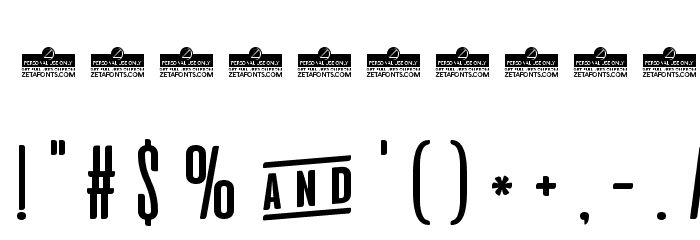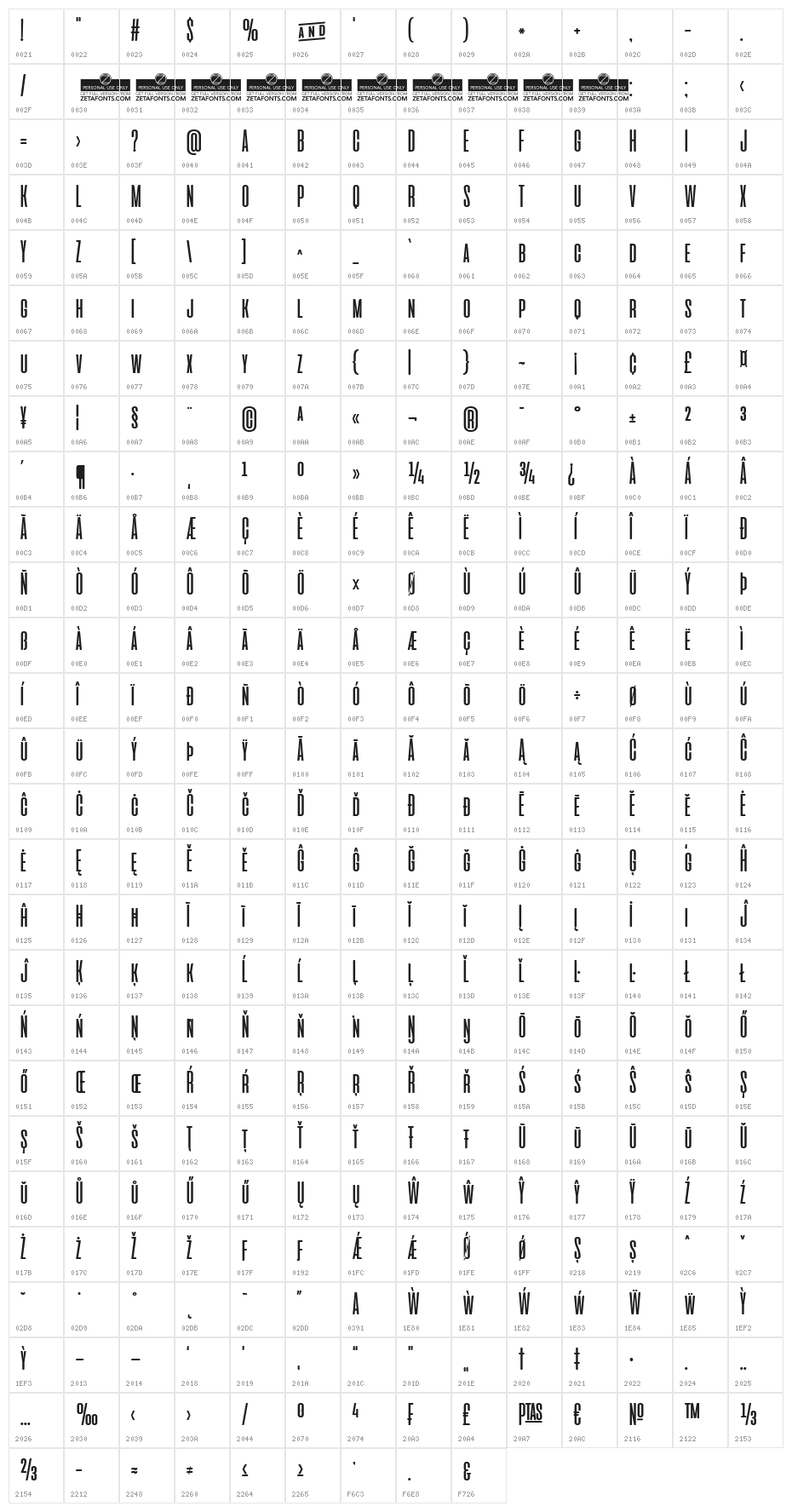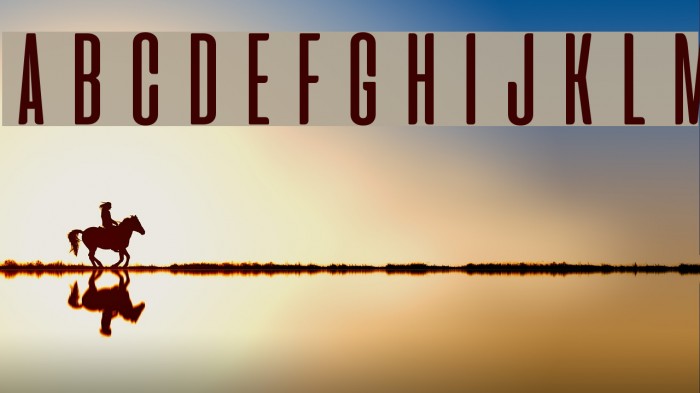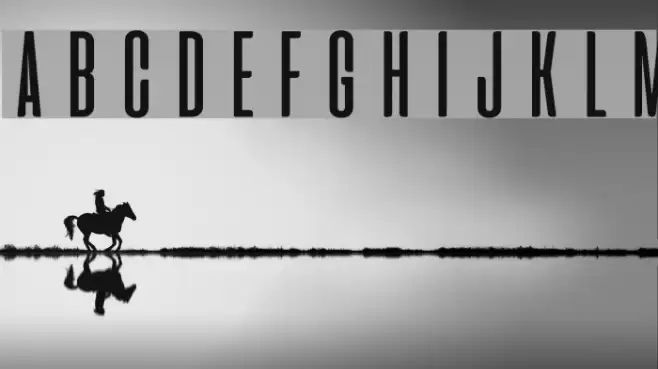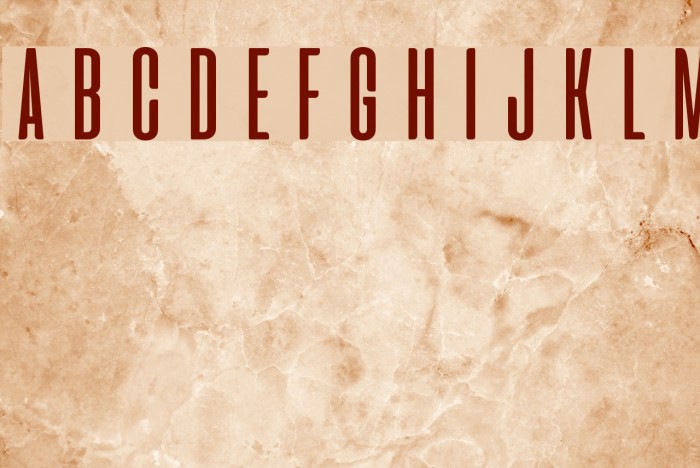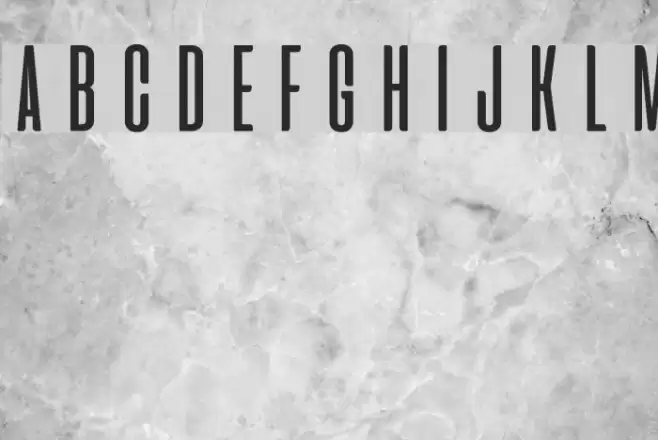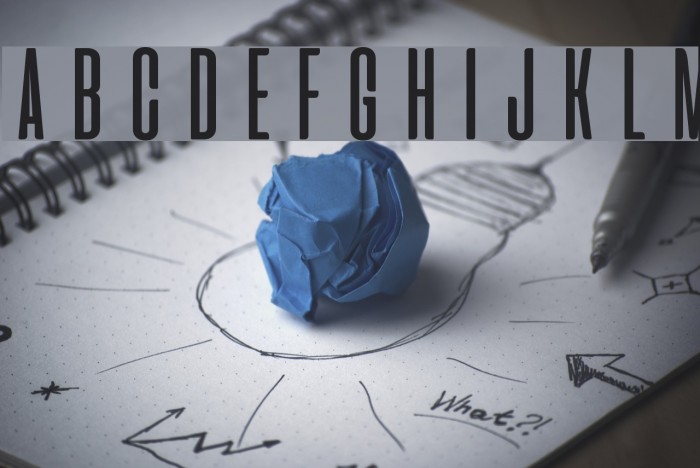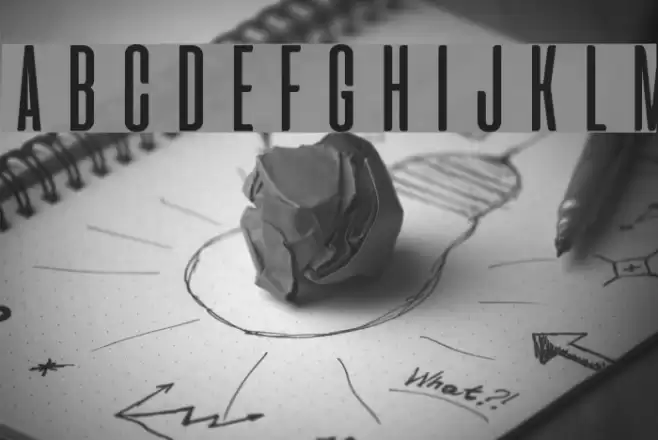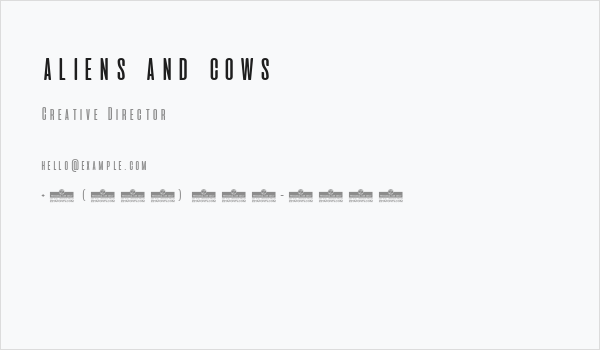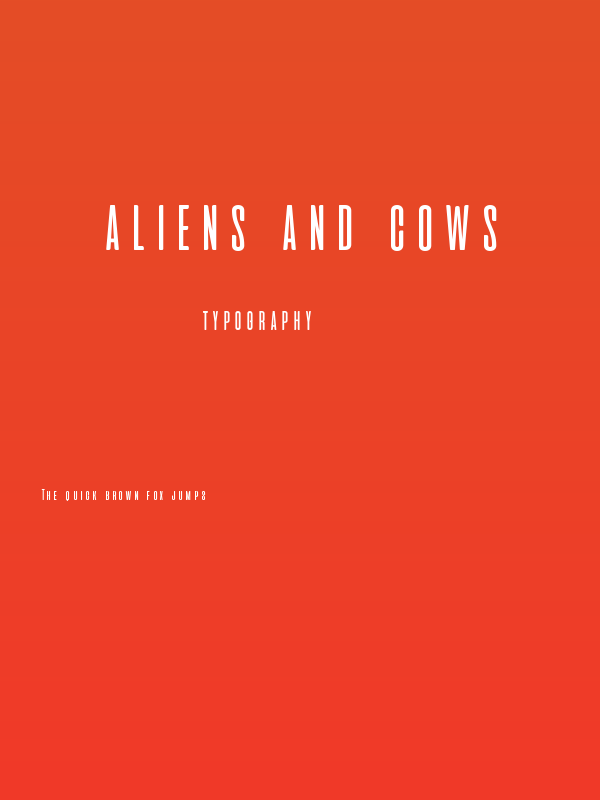
aliens and cows Font
aliens and cows Description
This font features a tall, narrow design with a modern and sleek appearance. The characters are elongated and have a consistent stroke width, giving it a uniform and clean look. The uppercase and lowercase letters maintain a similar height, enhancing its streamlined aesthetic. The font includes a full set of uppercase and lowercase letters, numbers, and a variety of special characters. Its geometric structure and minimalistic style make it suitable for contemporary design projects. The spacing between characters is tight, which contributes to its compact and efficient use of space.
| Proposed Projects | Ideal for branding, posters, headlines, and modern web design. |